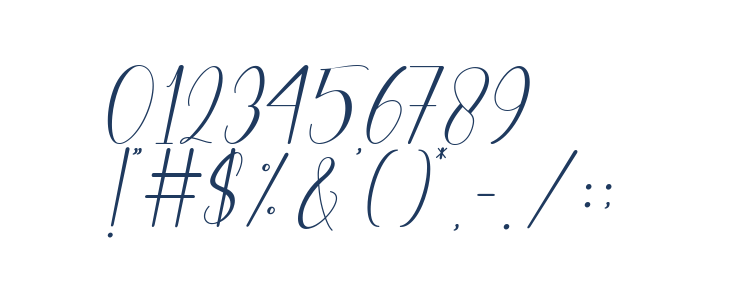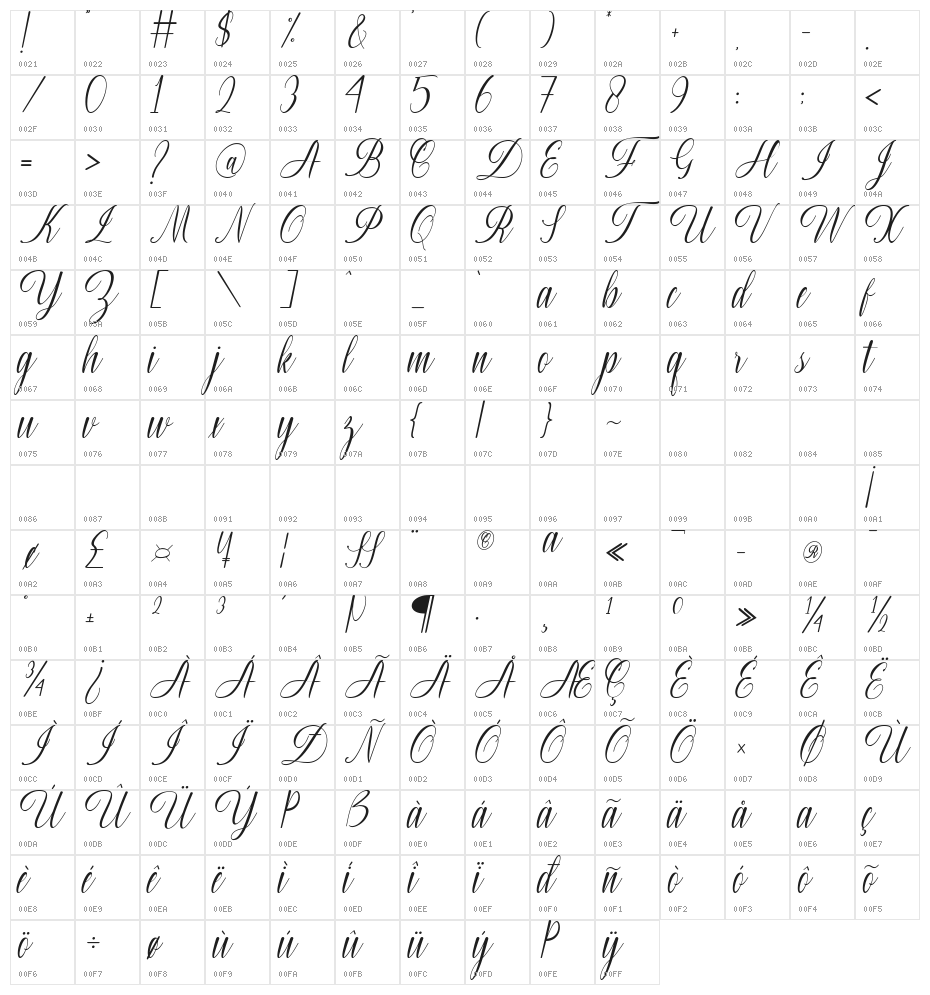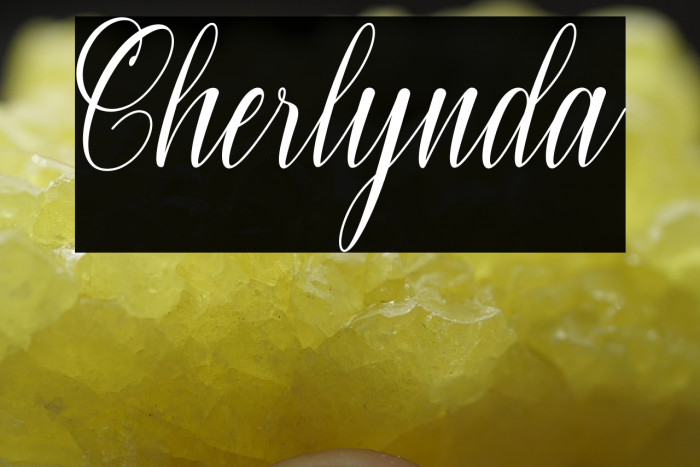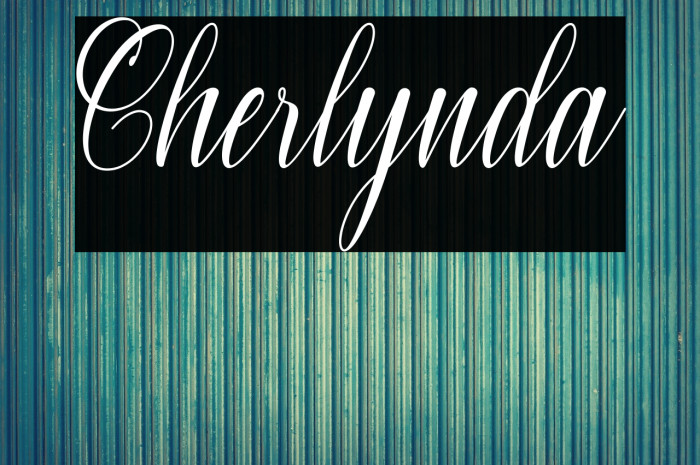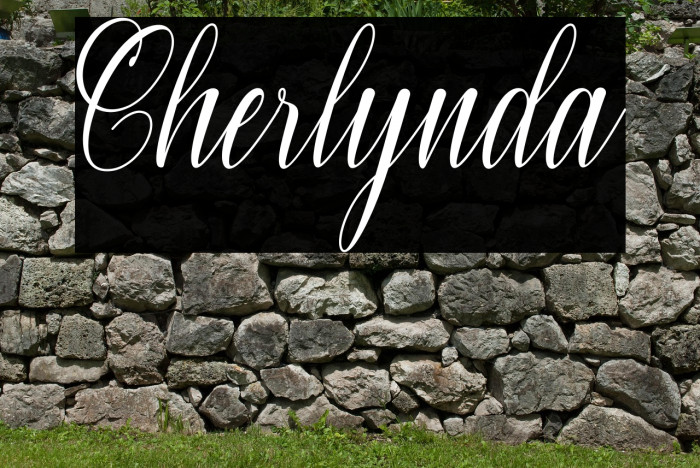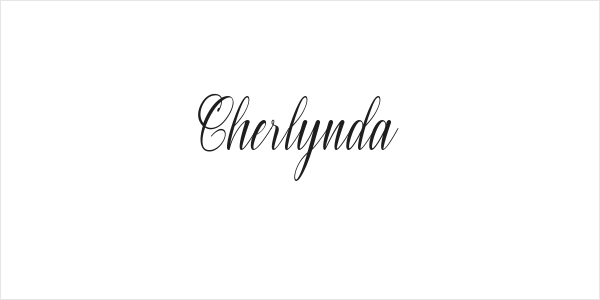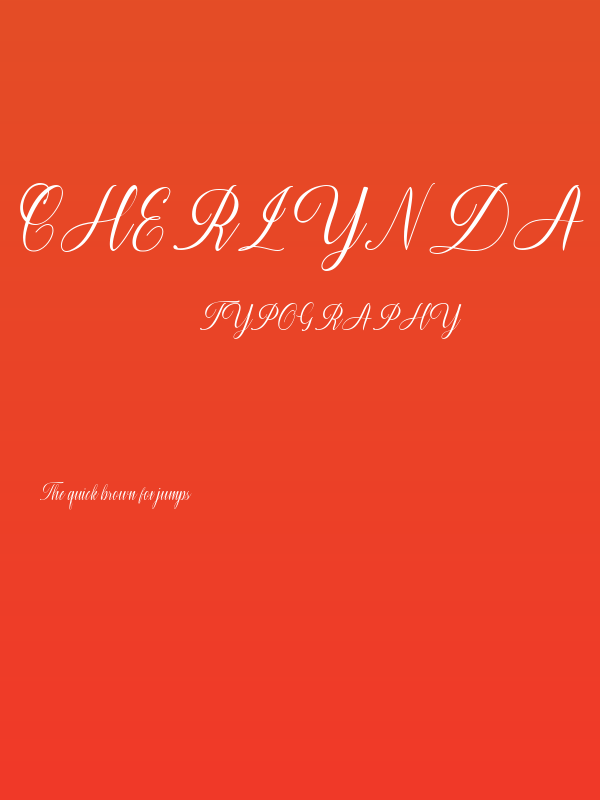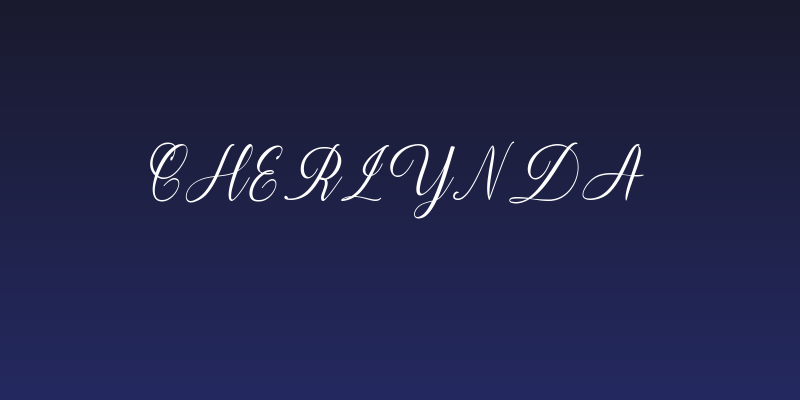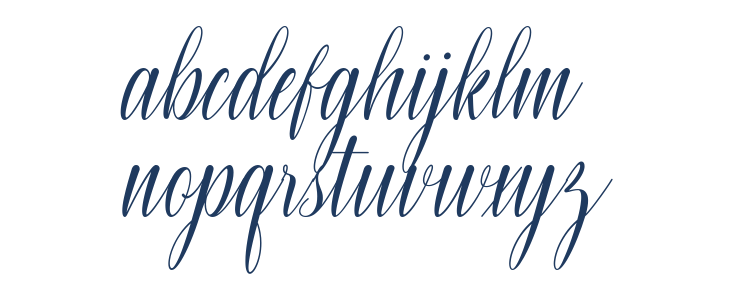
Cherlynda Font
Cherlynda Description
This elegant script font features flowing, cursive letters with a refined and sophisticated appearance. The uppercase letters are gracefully elongated, with delicate loops and swashes that add a touch of elegance. The lowercase letters maintain a consistent flow, with smooth connections and a slightly more pronounced stroke, giving them a bold yet graceful look. The numerals are stylishly curved, maintaining the overall script aesthetic. Special characters are thoughtfully designed, complementing the font's elegant style. This font is perfect for projects that require a touch of sophistication and class.
| Proposed Projects | Ideal for wedding invitations, luxury branding, elegant packaging, and sophisticated logos. |